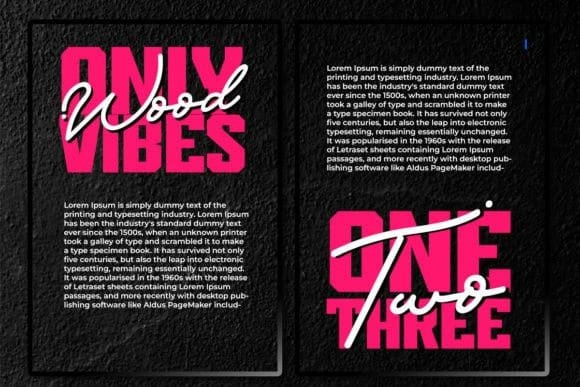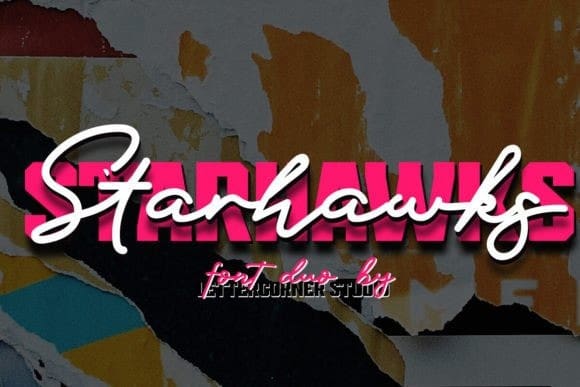
Starhawks Font Duo
Starhawks Font Duo is the perfect duo font that seamlessly blends handwritten charm with captivating display elements. The handwritten script adds a personal touch, while the display font brings a bold and eye-catching flair. This dynamic combination is ideal for diverse design projects, from invitations to branding, offering versatility and style. Elevate your creations with the harmonious balance of “Starhawks,” where the art of handwriting meets the impact of display fonts.
Starhawks Font is PUA encoded which means you can access all of the amazing glyphs and ligatures with ease!